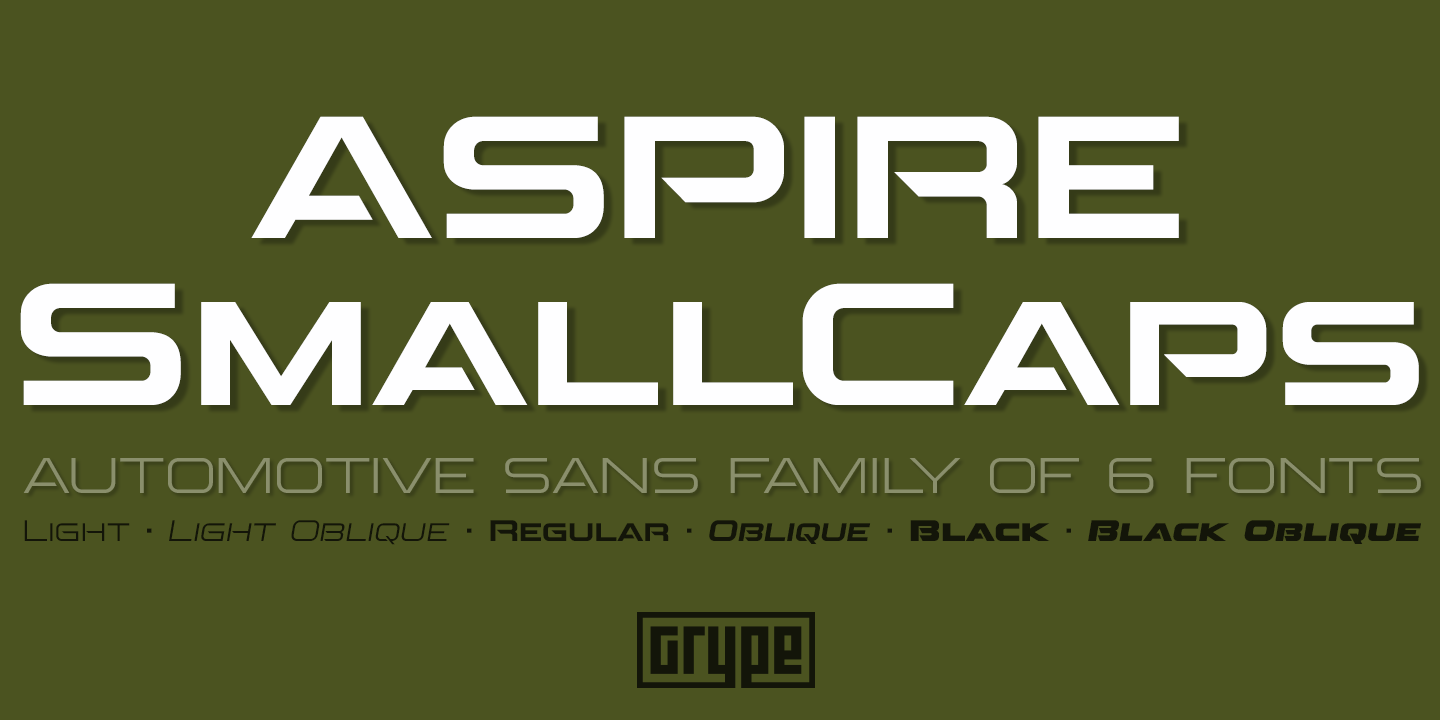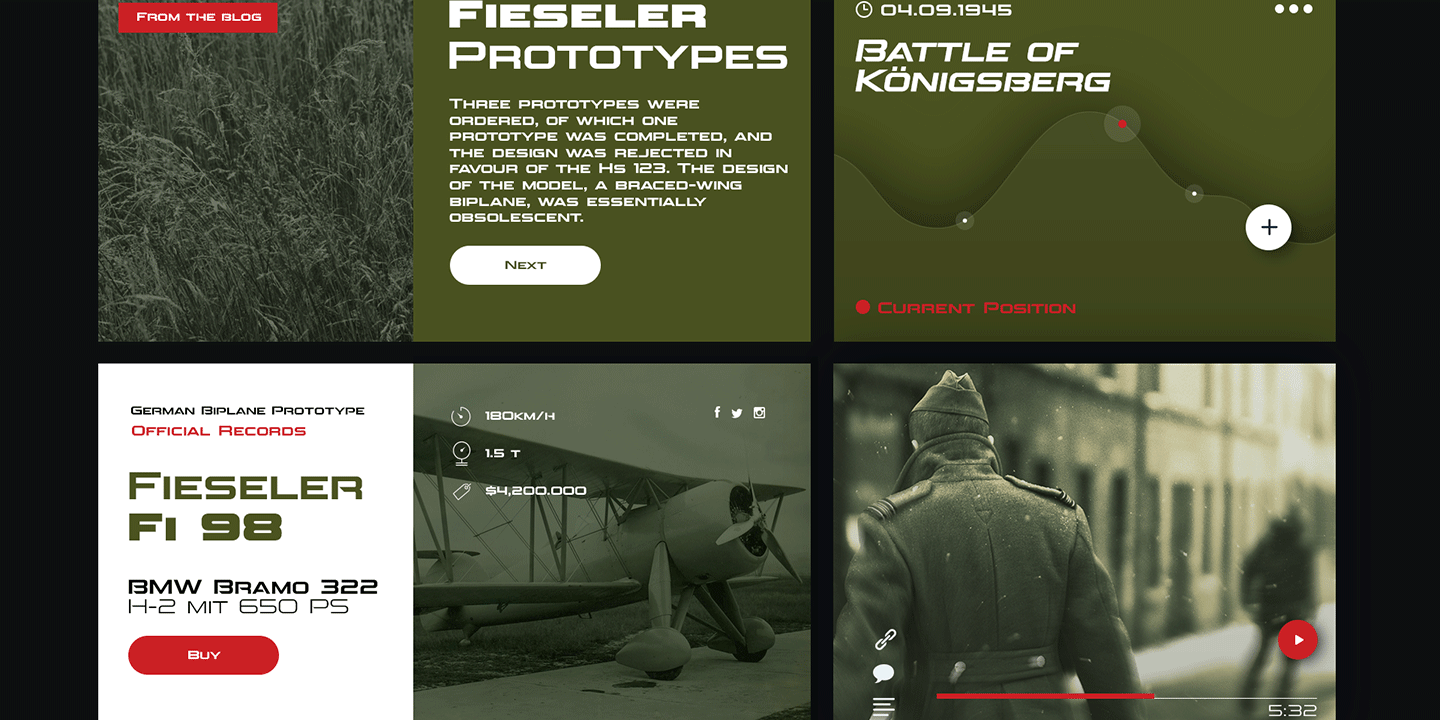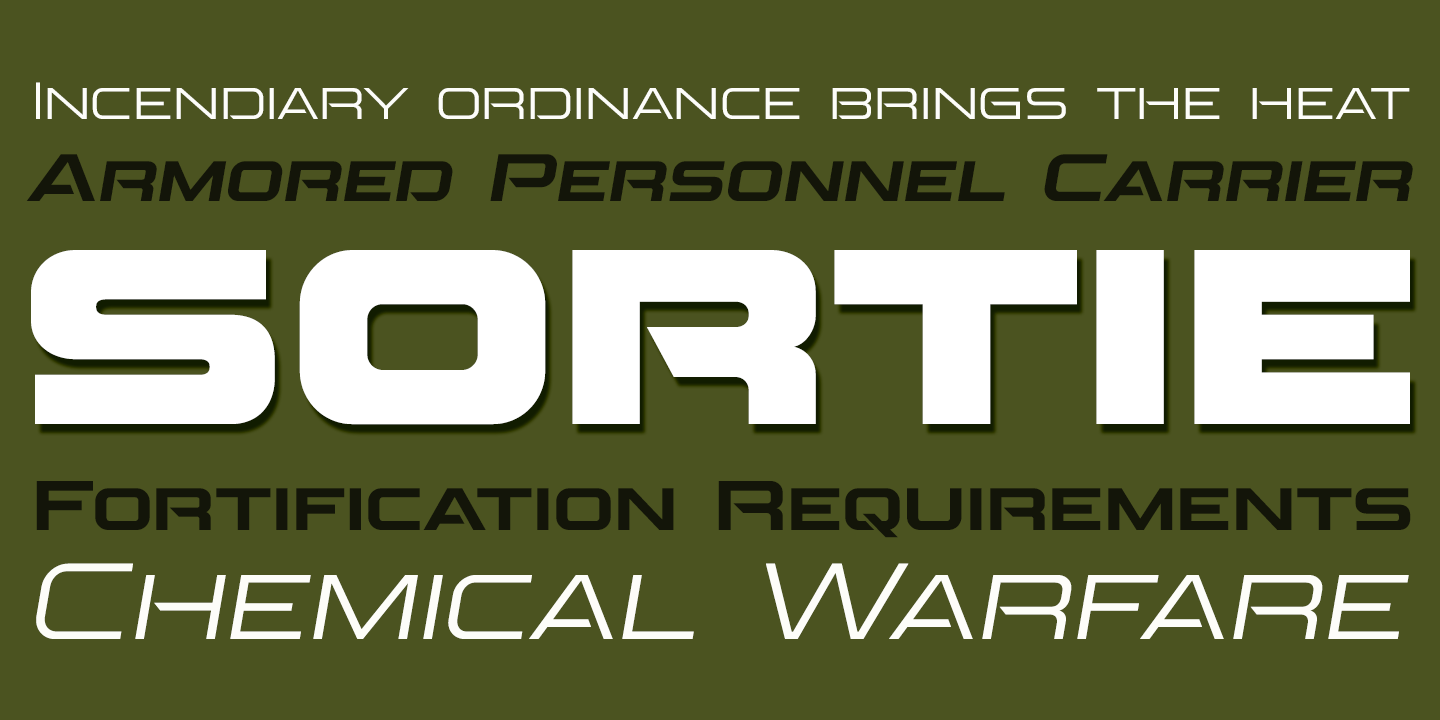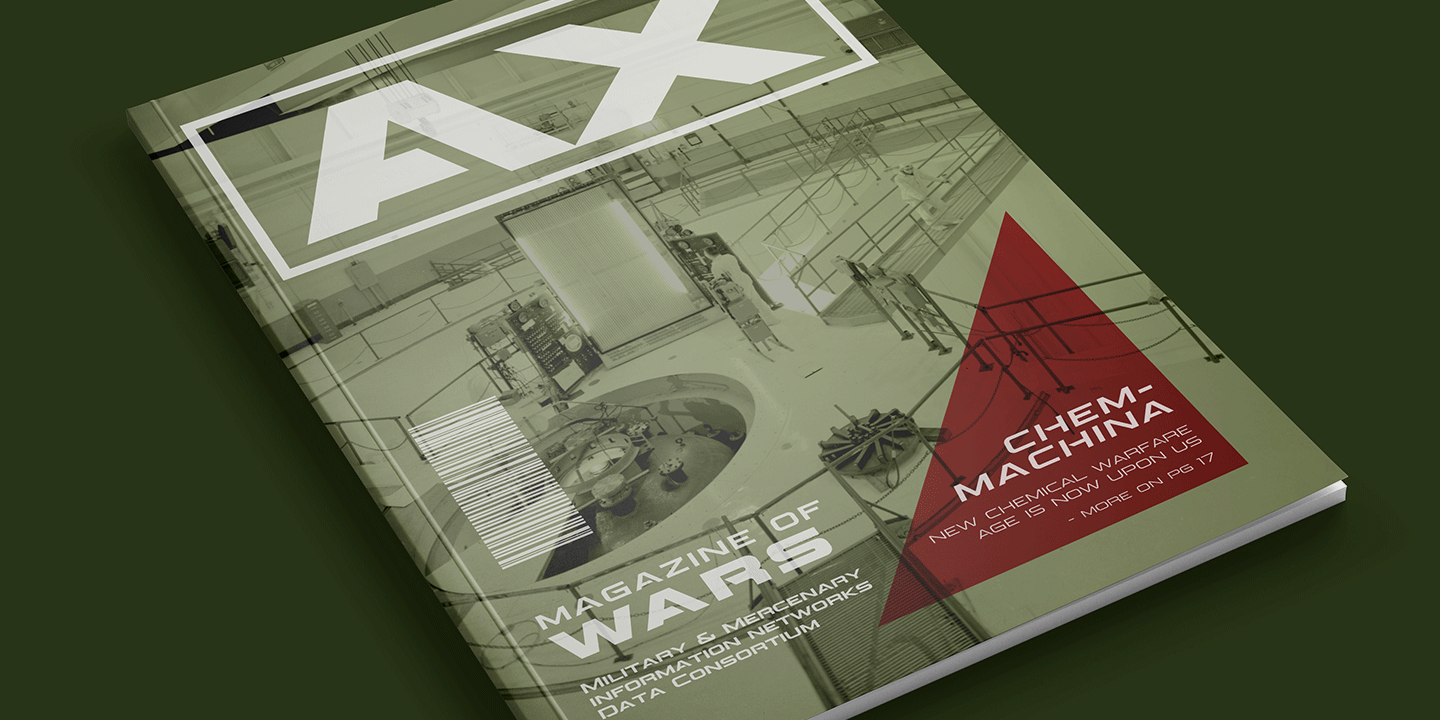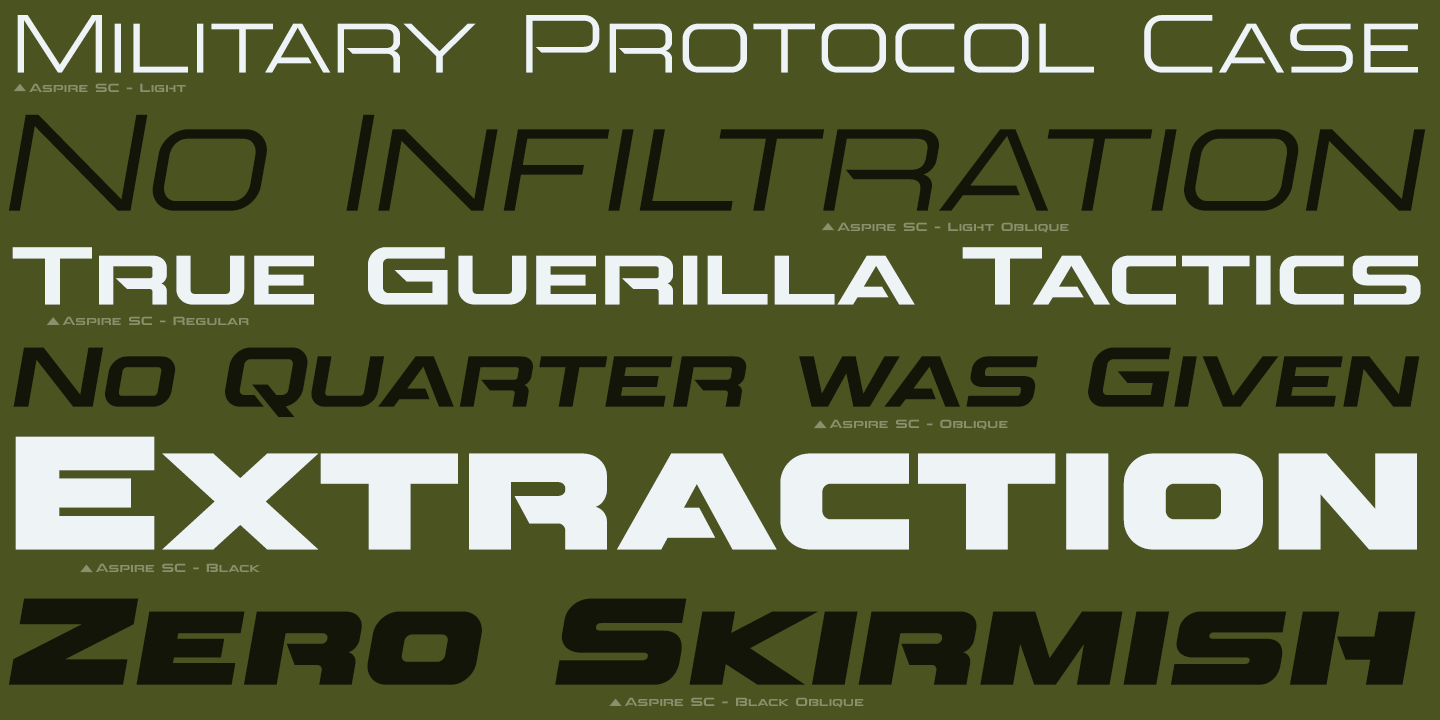
Aspire SmallCaps
While the Aspire SmallCaps family finds its roots of inspiration in the ACURA automotive company logo, with its wider base, the Aspire Narrow SmallCaps family condenses those styles into something more suitable for larger bodies of text in a more standardized width.
Aspire Narrow SmallCaps is perhaps the most true to form tribute to the original all capitals inspiration logotype. It maintains all capital forms (whether standard or smallcaps) and yet is still strikingly powerful in its presence and readability including numerals, and a comprehensive range of weights, creating a straightforward, uncompromising collection of typefaces that lend a solid foundation and a broad range of expression for designers.
- 430 glyphs per style - including Capitals, Small Caps, Numerals, Punctuation and an extensive character set that covers multilingual support of latin based languages. (see the 6th graphic for a preview of the characters included)
- Stylistic Alternates - alternate characters that remove the angled stencil cuts for a more standardized text look.
- 3 weights in the family: Light, Regular, & Black.
- 3 obliques in the family, one for each weight: Light, Regular, & Black.
- You're in need of automotive sans font family with a range of weights and obliques
- You're love that ACURA letter styling, and want to design anything within that genre
- You're looking for an alternative to Eurostile with more stylized letterforms.
- You're looking for a solid typestyle for routing signs in wood.